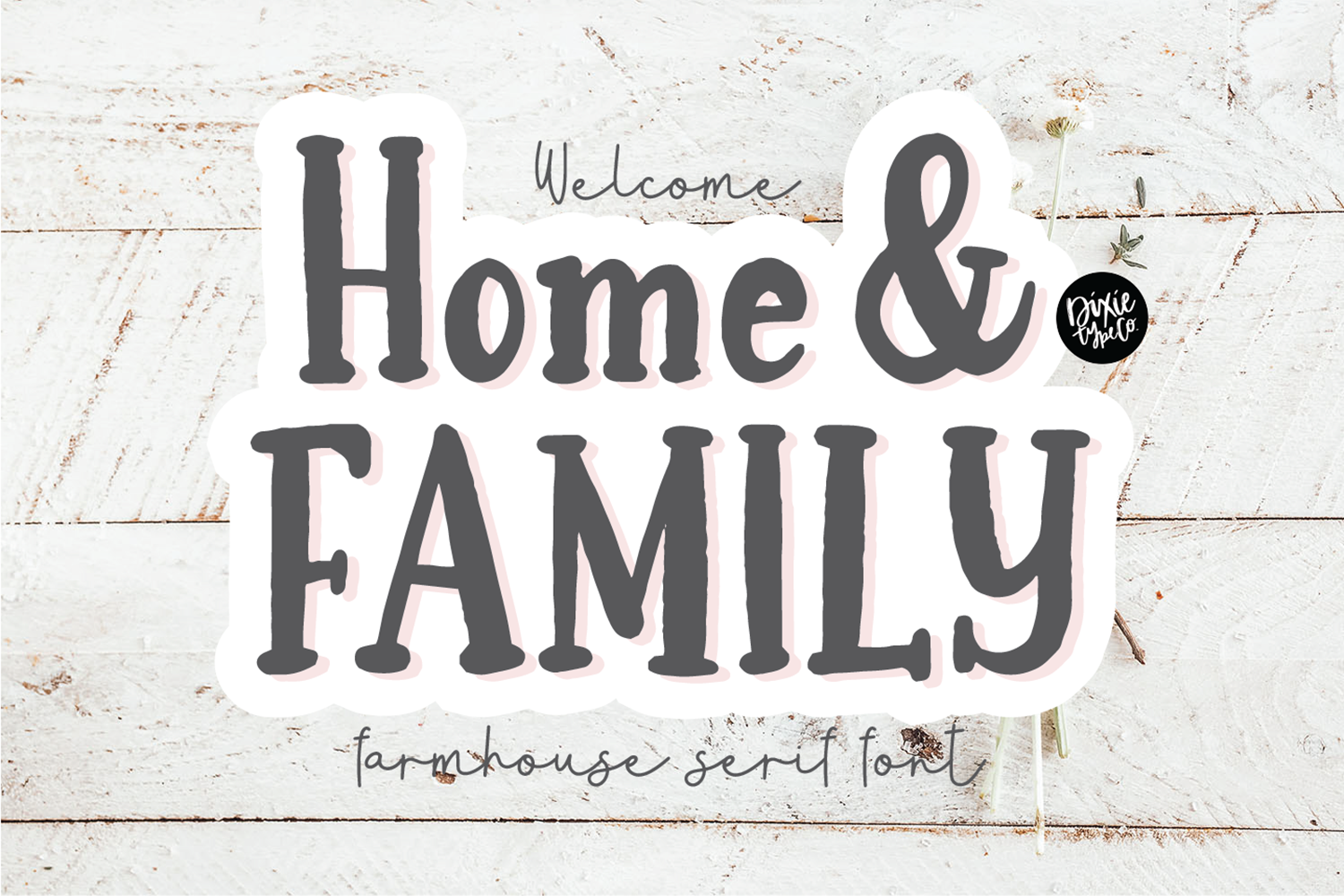
"Home & Family" Farmhouse font. Perfect for signs!
This listing is for the instant download of the .otf file of this font. This font installs to your computer and types.Home & Family is a bold serif font that will compliment any script font. It was made with rustic farmhouse signs and the cottagecore aesthetic in mind. Check out our other farmhouse style fonts that pair perfectly with this one!